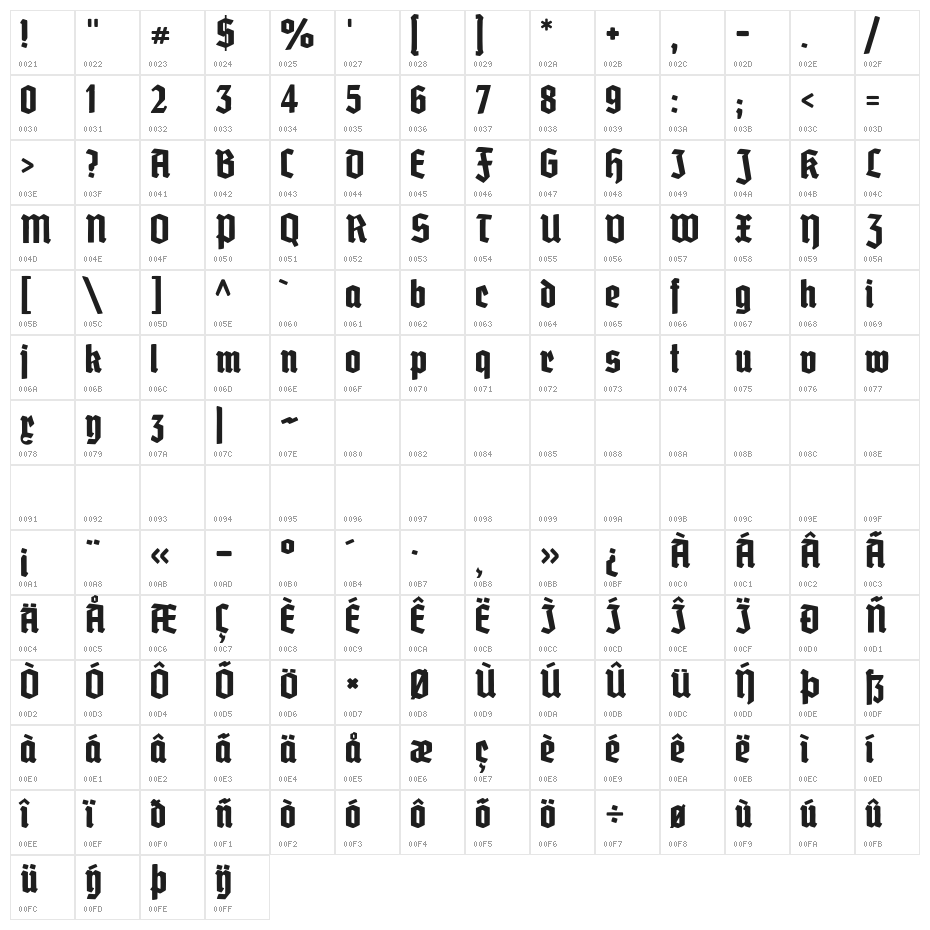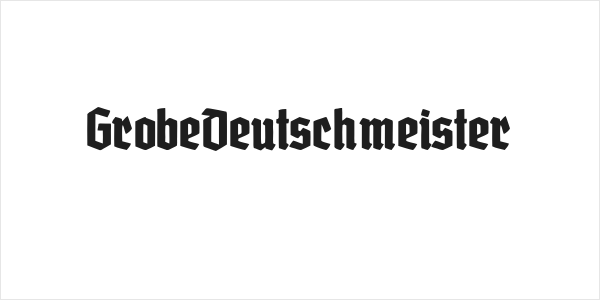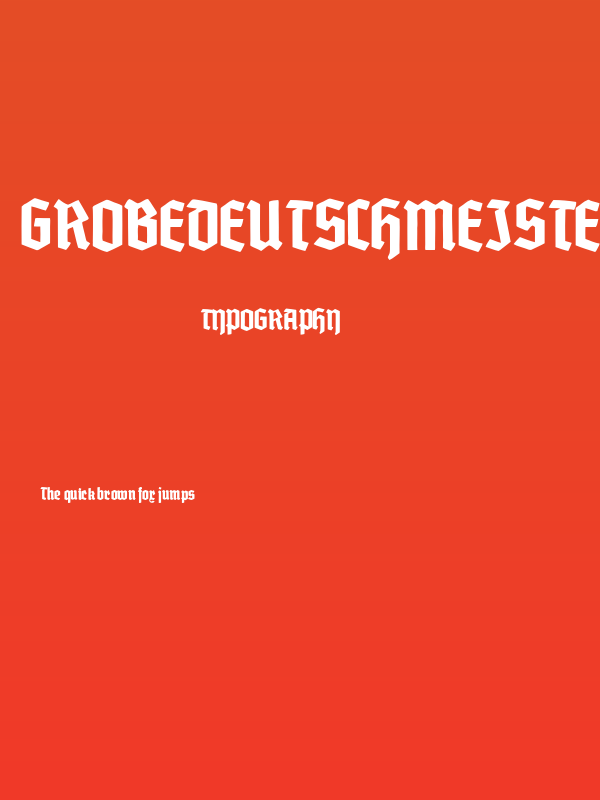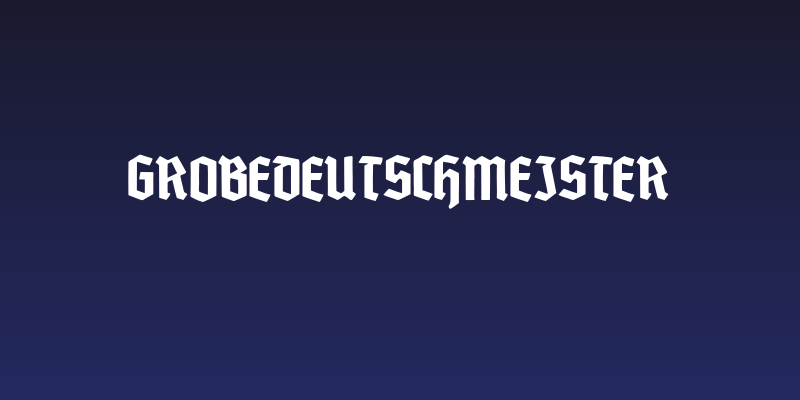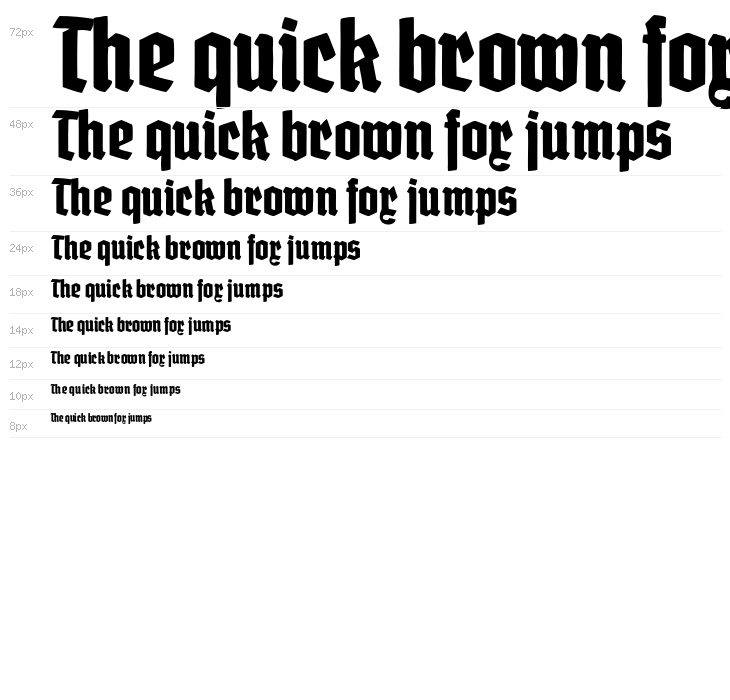
GrobeDeutschmeister Font
GrobeDeutschmeister Description
This font features a bold and dramatic style, reminiscent of traditional blackletter typefaces. The characters are characterized by sharp, angular lines and a strong presence, making it ideal for creating a sense of historical or gothic atmosphere. The uppercase and lowercase letters maintain a consistent style, with intricate details that enhance its decorative appeal. The numerals and special characters are equally bold, ensuring uniformity across all text elements. This font's unique style makes it stand out, perfect for projects that require a touch of elegance and tradition.
| Proposed Projects | Ideal for historical documents, gothic-themed designs, book covers, and decorative posters. |